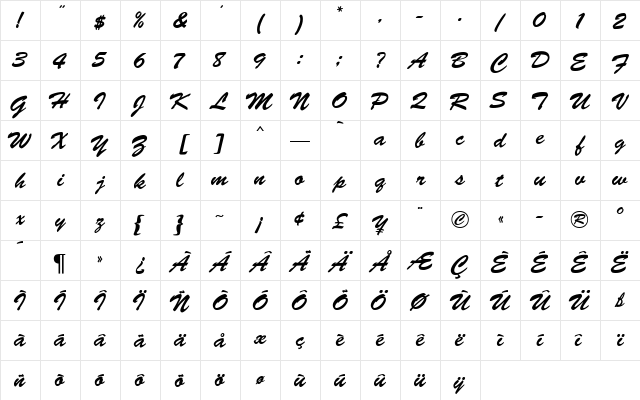
BrushMN Regular Font Preview
BrushMN Regular
BrushMN Regular Font Details
| Foundry | Mecanorma International . \ |
Design Context for BrushMN Typeface
BrushMN brings a calligraphic fluidity to the page — its connecting strokes and expressive curves give it an unmistakably human quality.